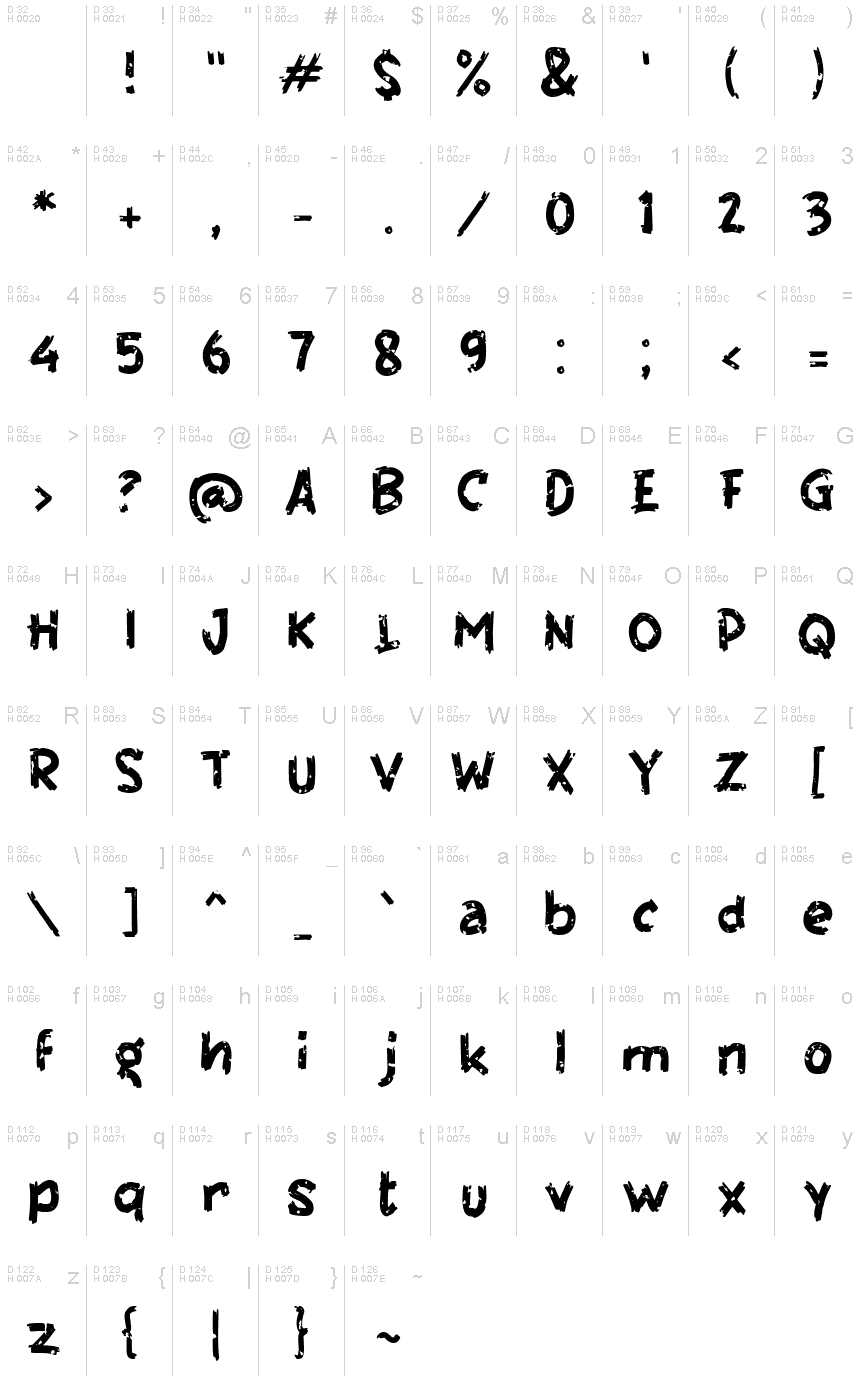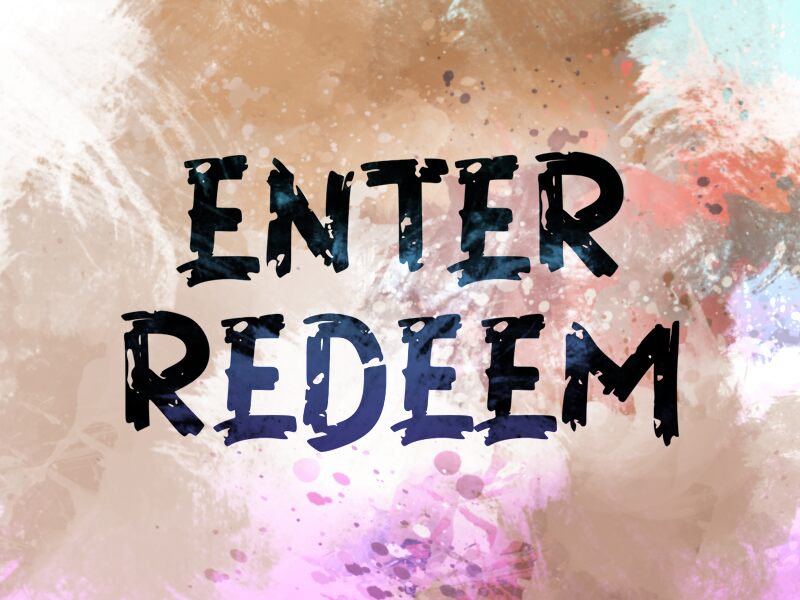
ENTER REDEEM
Enter Redeem, a captivating script font by wep. With its semi-bold weight and trash style, it exudes an edgy and rebellious vibe.
This font is perfect for music album covers, streetwear brands, and tattoo parlors looking to make a bold statement. Its wild strokes and untamed curves add a touch of modernity to any design project. Whether you're creating posters for underground events or designing striking logos for alternative bands, Enter Redeem will bring your visuals to life with its unique and daring personality.